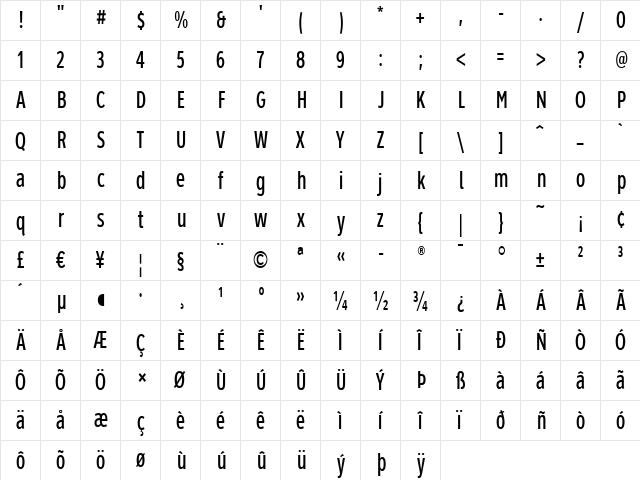
ClearviewHwy-1-W Regular
| Foundry | Terminal Design, Inc |
| Designer | James Montalbano, Donald Meeker, Chris O'Hara |
Design Context for ClearviewHwy-1-W Typeface
ClearviewHwy-1-W is a composed and adaptable typeface that performs quietly and consistently across a wide range of design contexts.